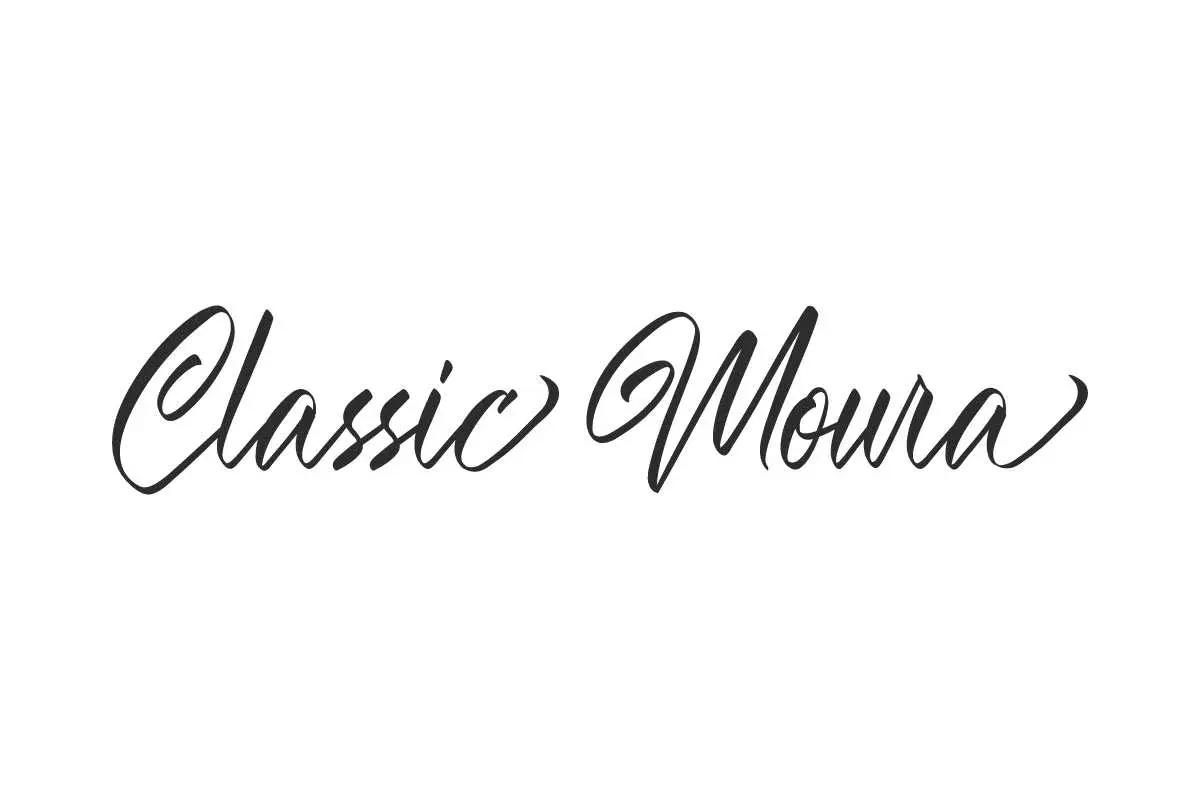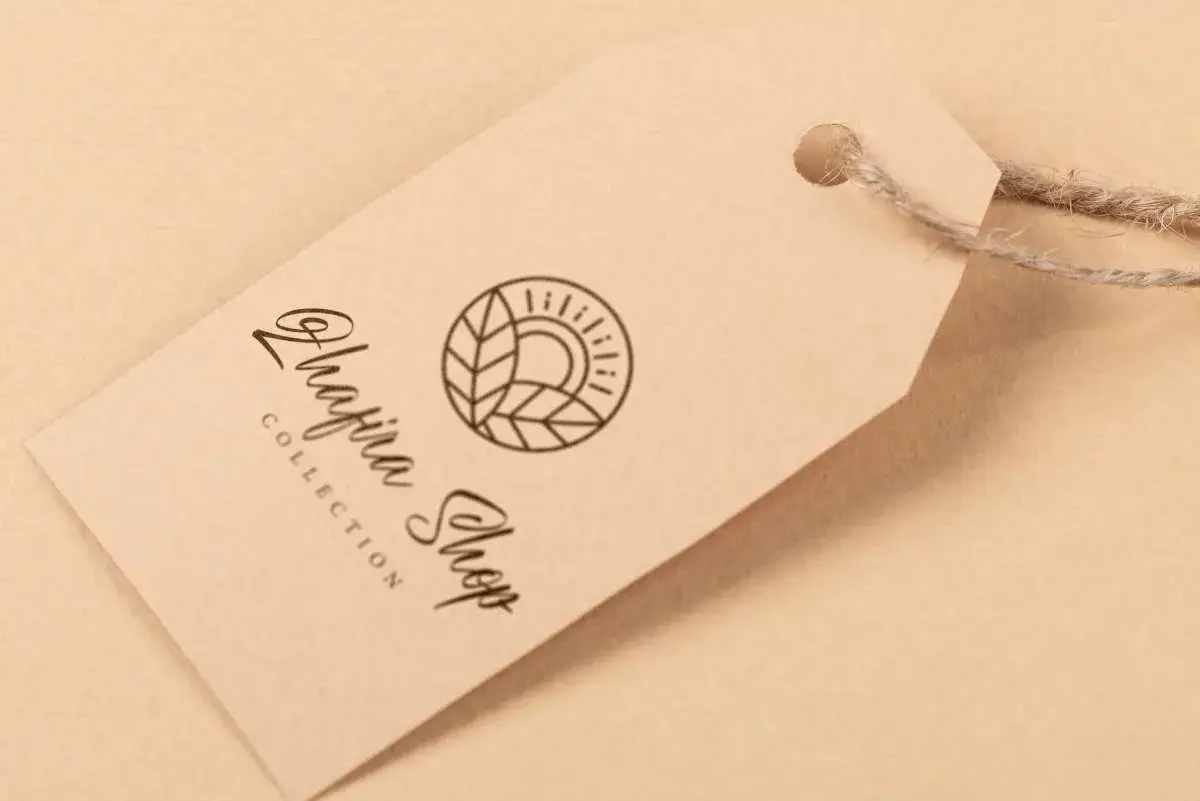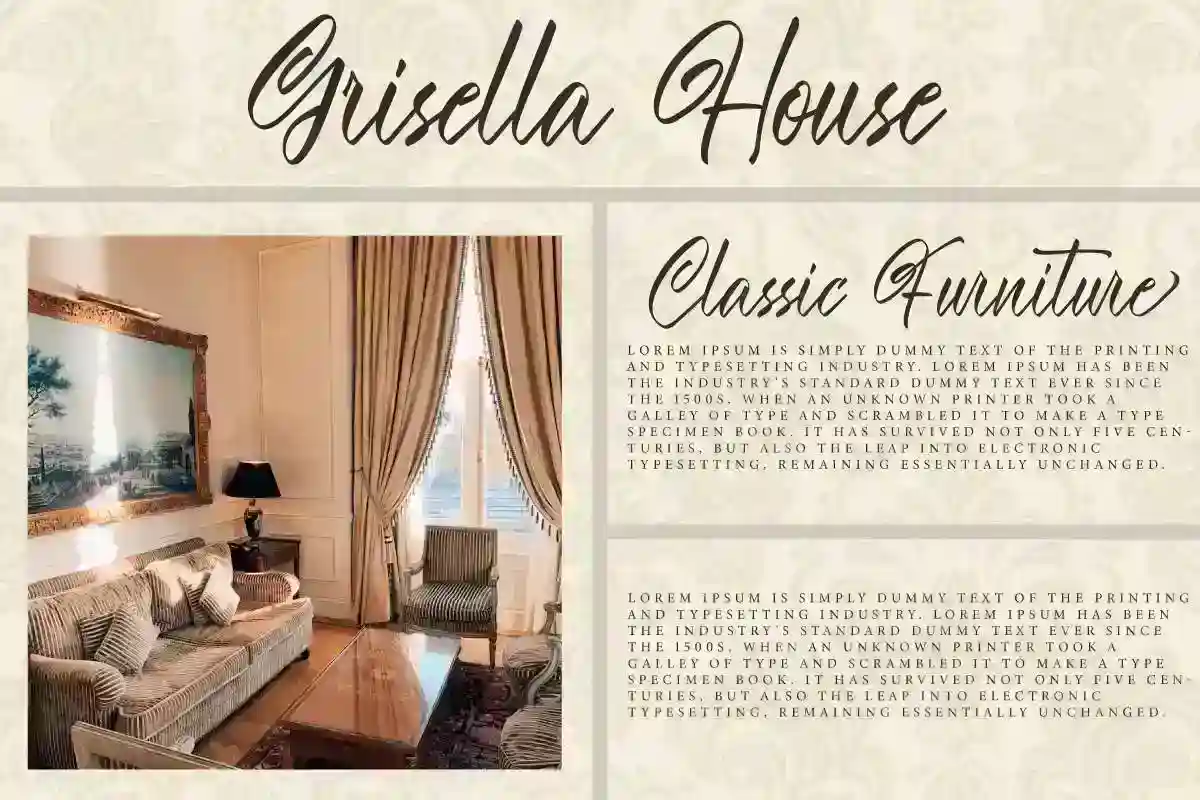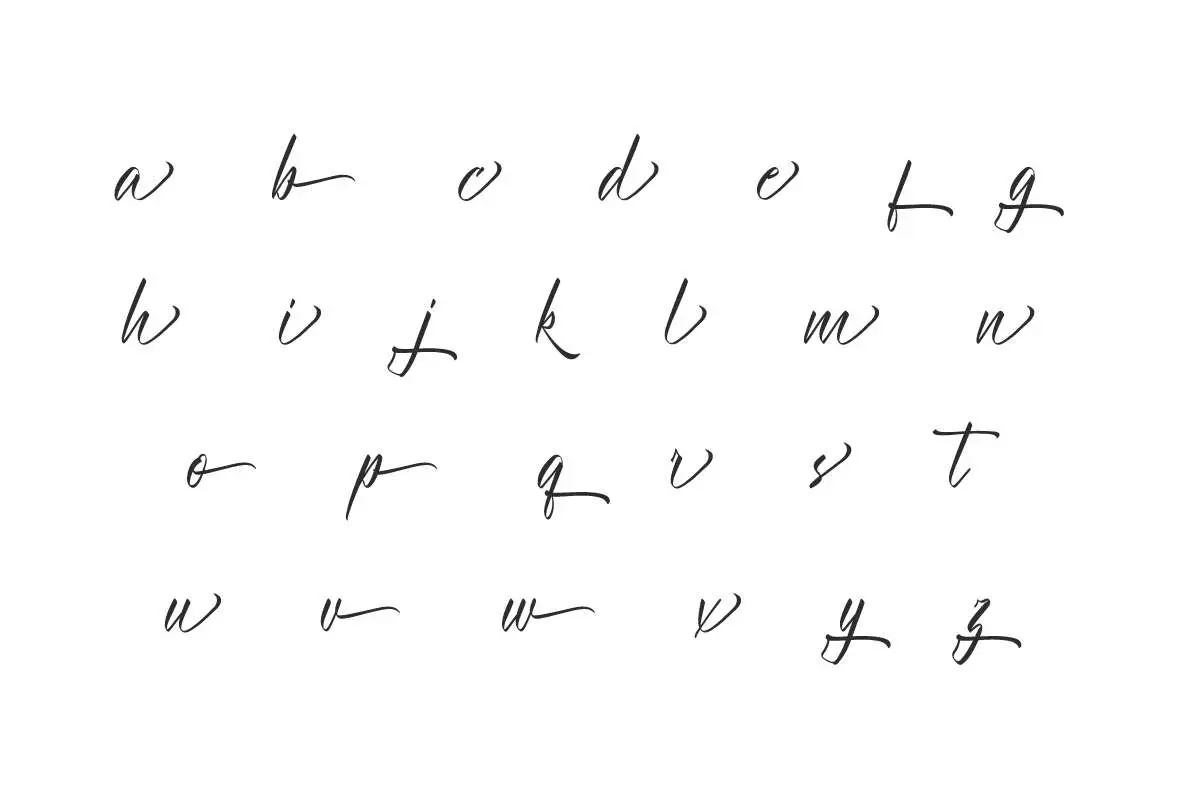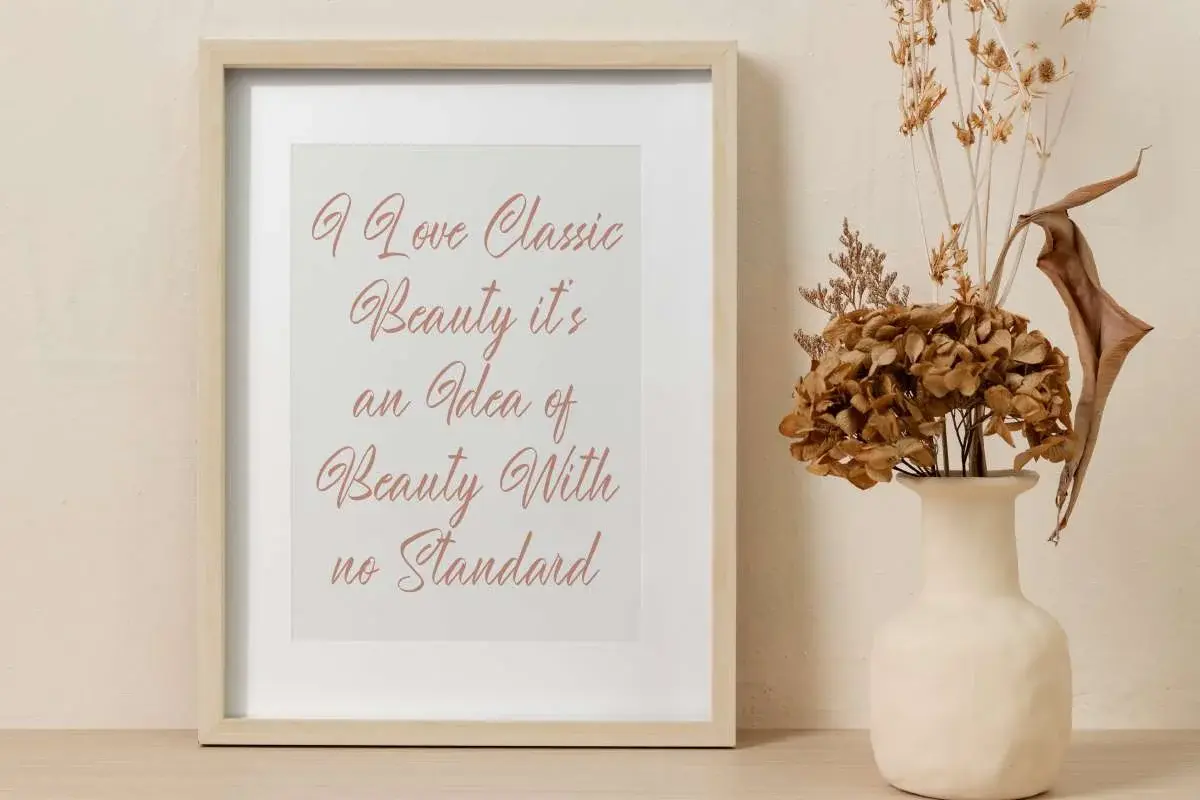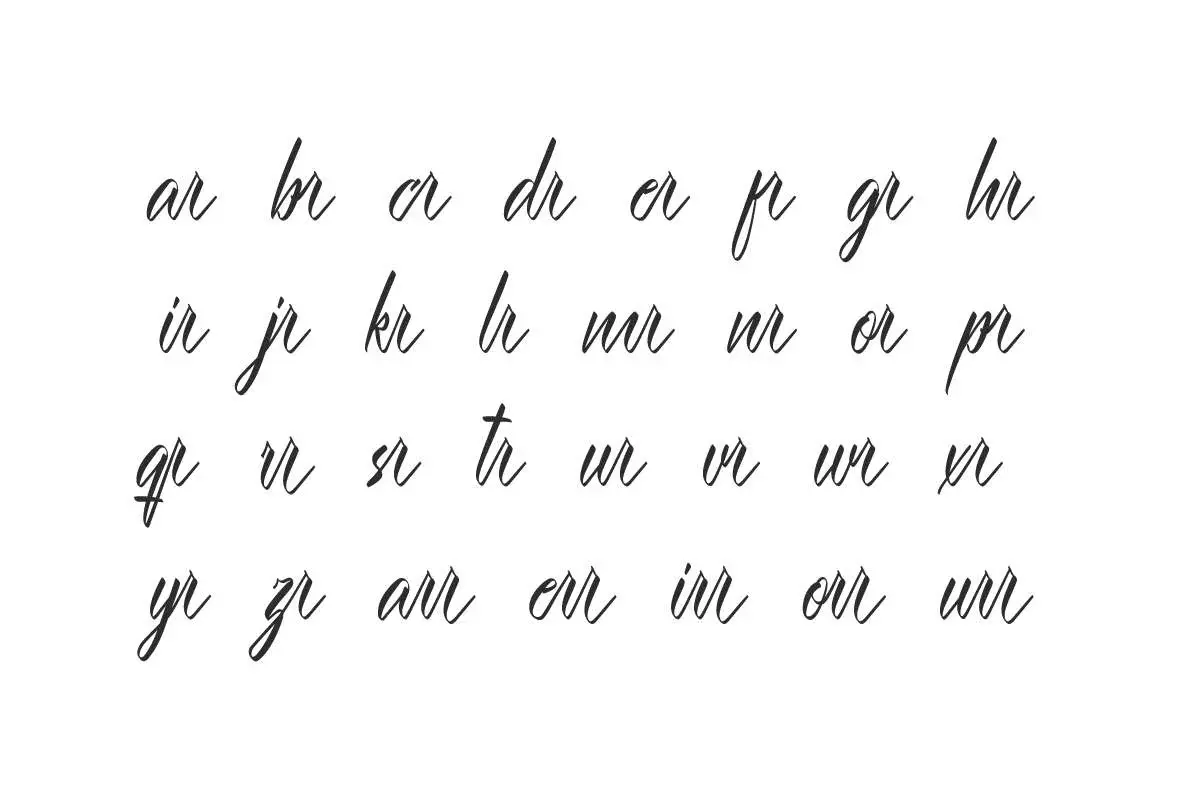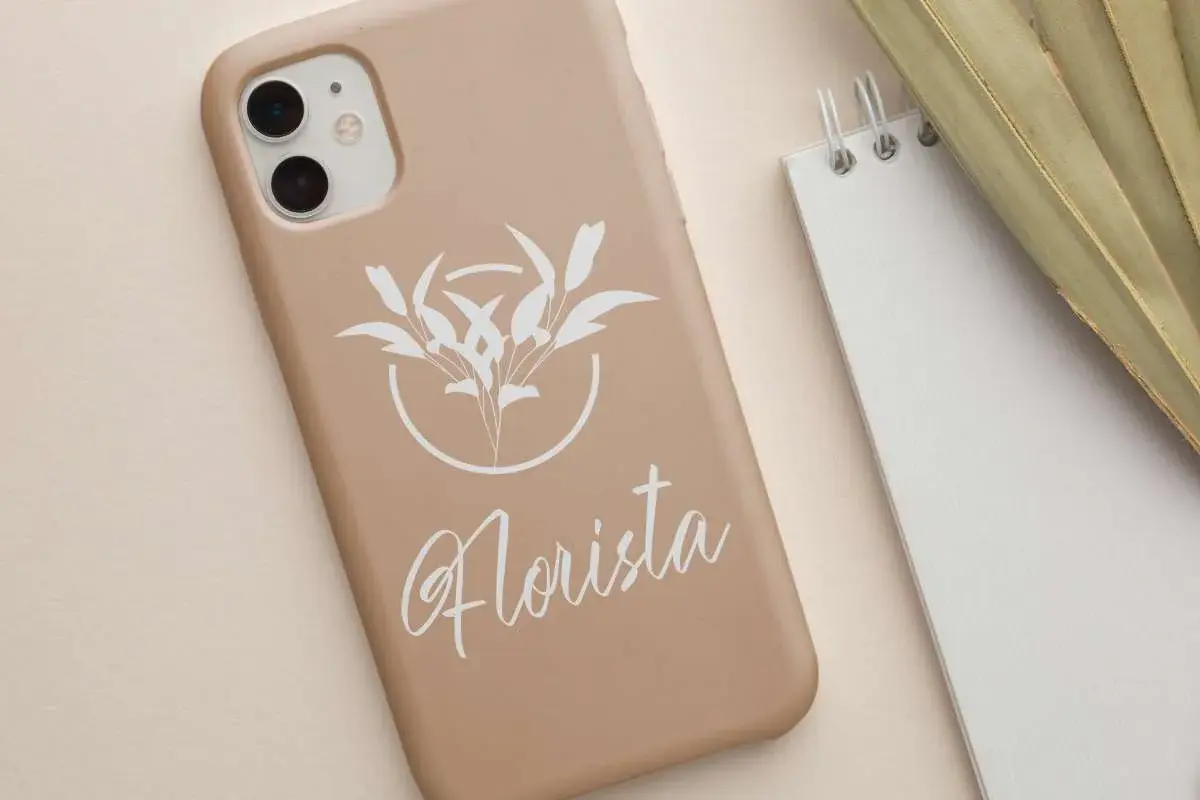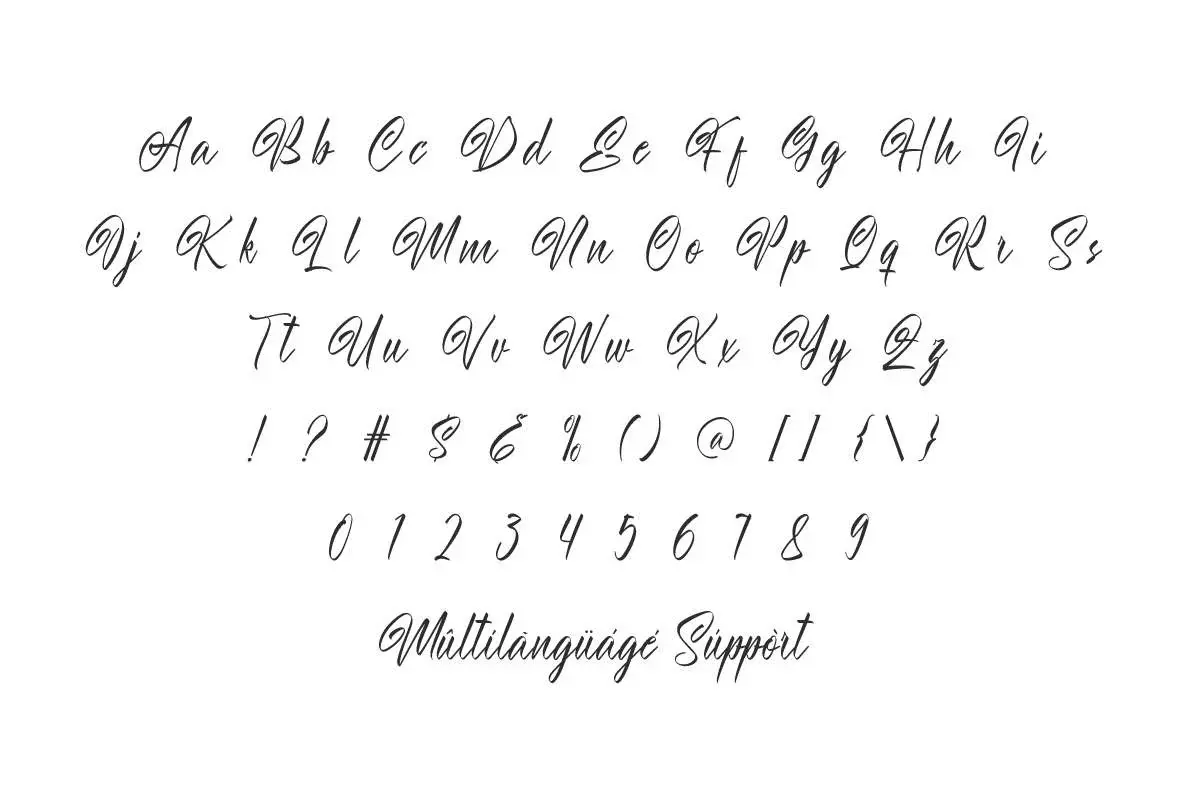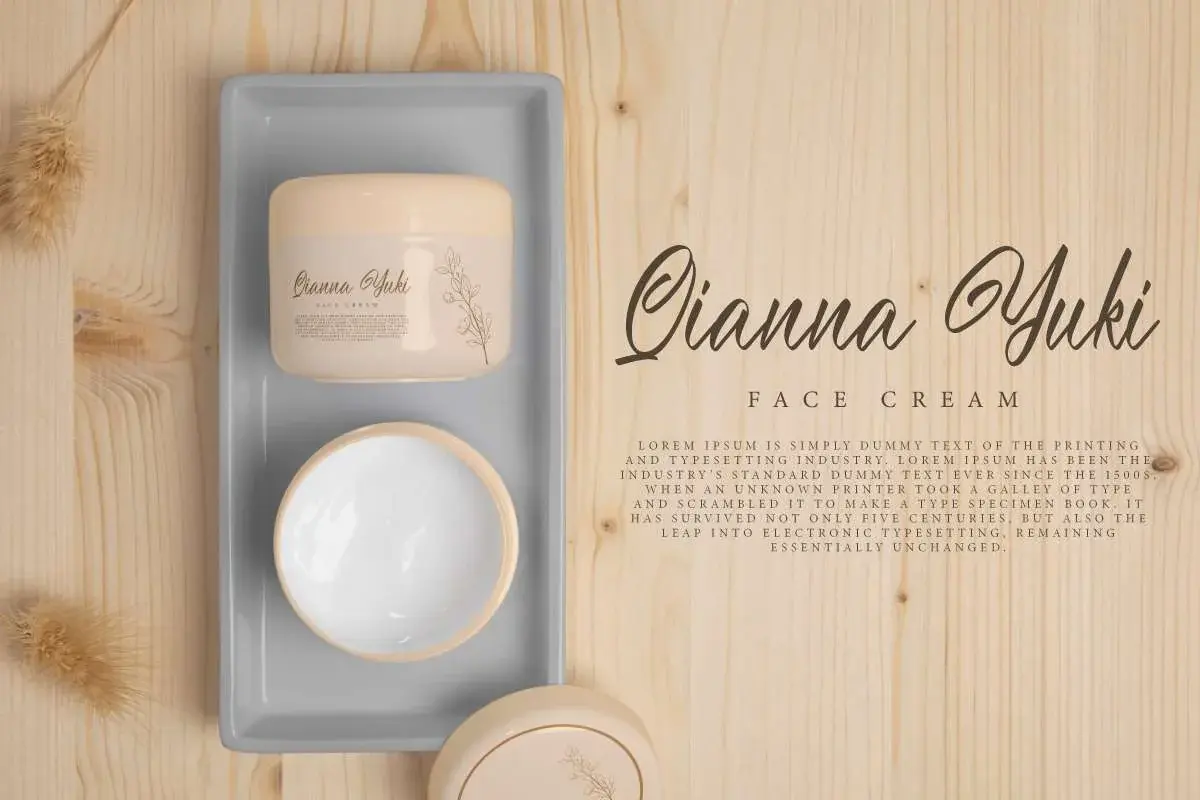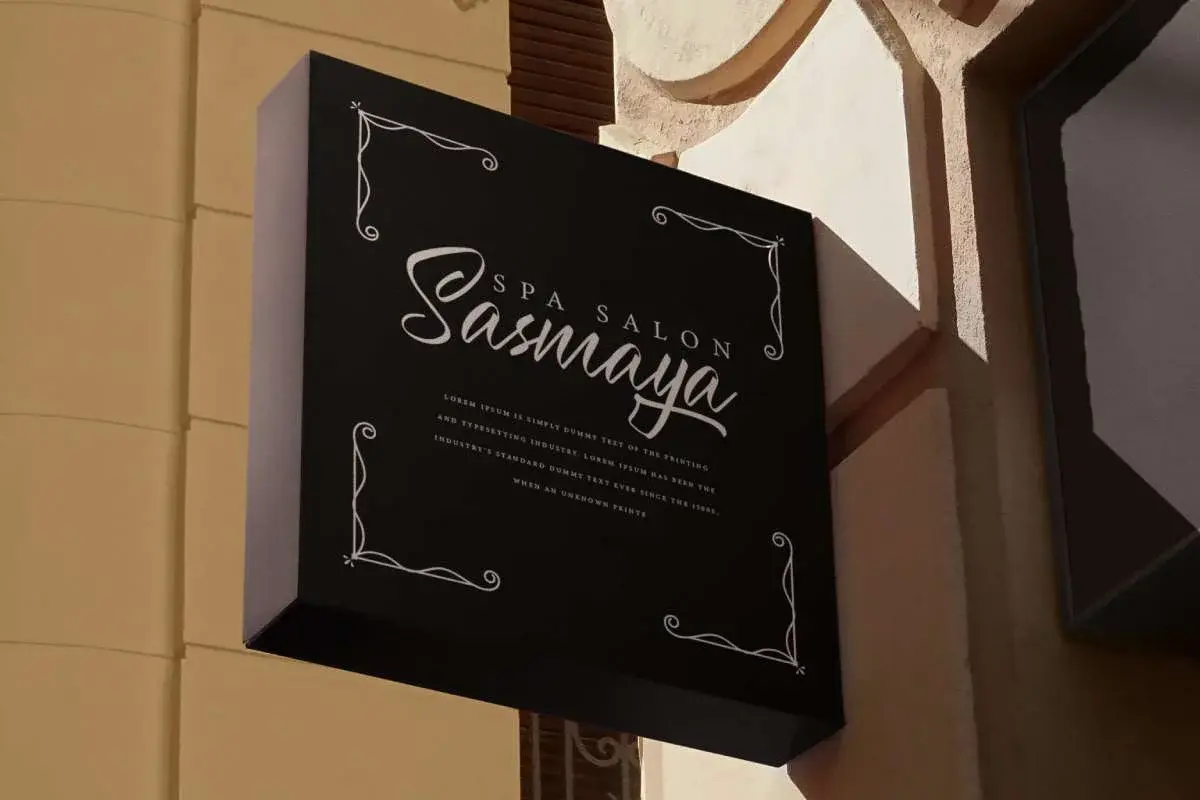
Classic Moura Font is a classy beautiful calligraphic font inspired by classic era looks. It would be perfect for cosmetic brands, furniture, quote, architect, spa salon, fashion, weddings, etc.
Classic Moura Font is a beautiful calligraphic script font with a classic aesthetic touch. This typeface can be categorized as difficult typefaces because the beautiful curves or twists in each character make it stand out and will add to the visual beauty of your design, such as brand logo, brochure, catalog, cover, invitation, label, menu flyer, product packaging, quote, screen print, signage, stationery, sticker, title, website, and much more!
Classic Moura Font comes with a full set of Uppercase and Lowercase Basic Characters, Number, Punctuation, Symbol. Also with the addition of Ligature and Alternate characters which is able to bring aesthetic value to the font. Use this for your business industry such accessories, boutique, event organizer, fashion designer, florist, furniture, handicraft, pottery, printing, publishing, real estate, restaurant, skincare, spa salon, wedding, etc.